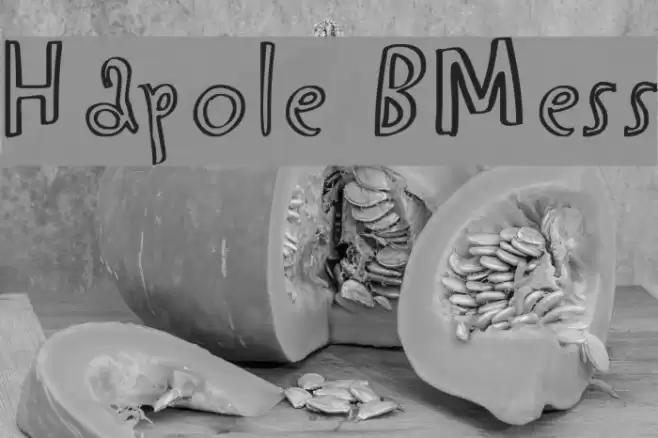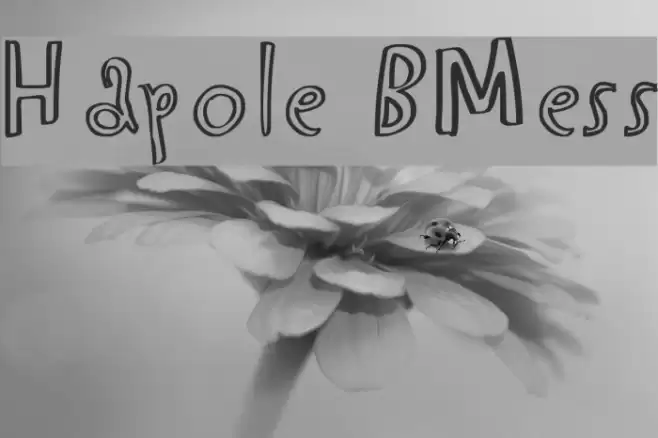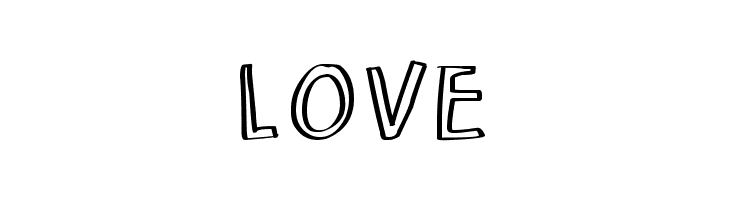
Hapole BMess Font
Hapole BMess Description
This playful and quirky font features a hand-drawn style with uneven strokes and a casual appearance. The letters are slightly irregular, giving them a whimsical and artistic feel. The uppercase and lowercase characters maintain a consistent style, with a unique flair in each letterform. The numbers and special characters follow the same playful design, making the font versatile for creative projects. Its bold outline and informal structure make it stand out, perfect for designs that require a fun and engaging look.
A playful, hand-drawn font with quirky, uneven strokes and a casual style from Cartoon fonts.
- Proposed Projects: Ideal for children's books, comic strips, playful branding, and creative posters.